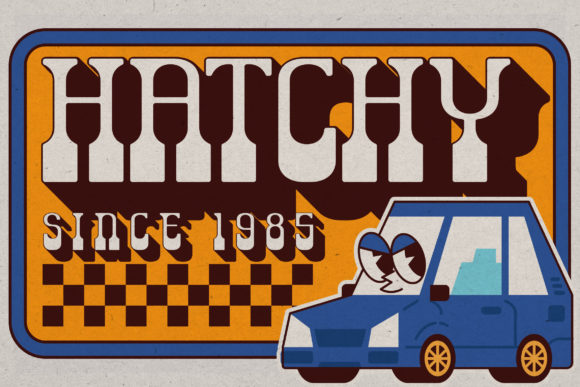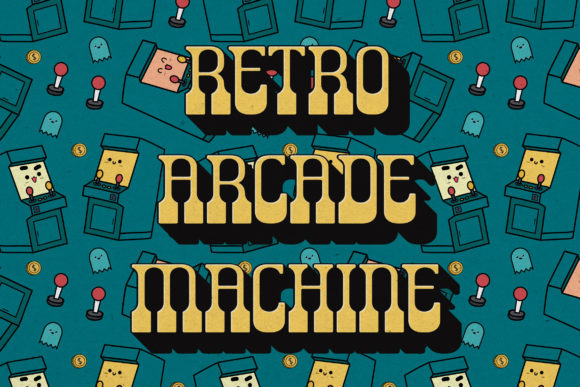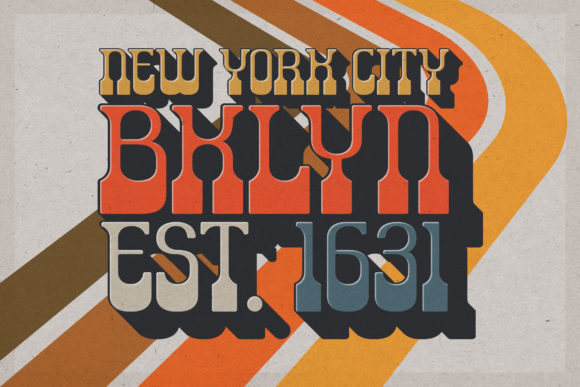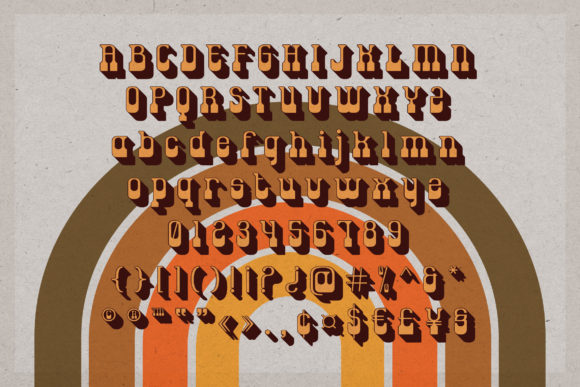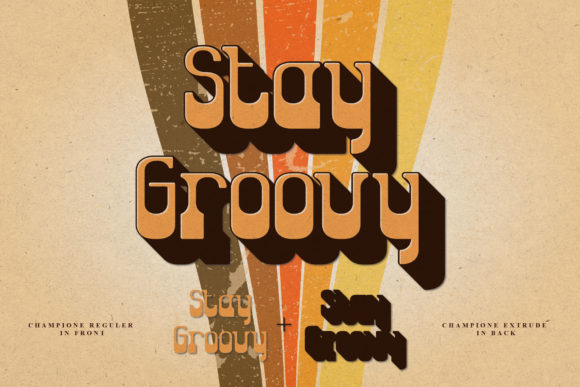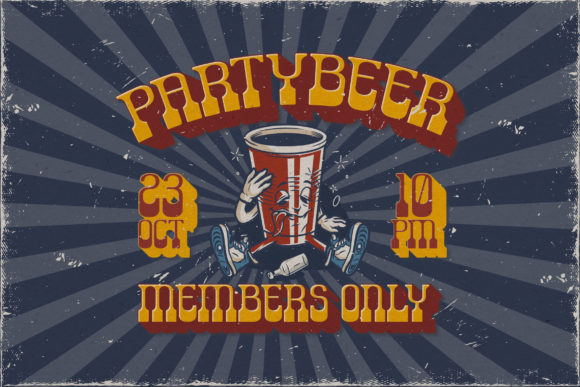
Step Back in Time with Champione Font: A Retro Revival for Modern Designs
I’ll never forget the struggle I faced while working on a vintage-themed editorial project. My client wanted a font that would transport readers back to the 80s, but I was coming up empty-handed. That’s when I stumbled upon Champione Font, a retro gem that instantly brought the era to life. If you’re a designer, crafter, or creative hobbyist looking for a font that exudes nostalgia and style, you’re in the right place!
Champione Font has become a staple in my design toolkit, and here’s why:
- ✨ Retro charm: Champione’s bold, chunky letters instantly evoke the spirit of 80s design.
- ✅ Versatility: This font is perfect for editorial projects, logo design, clothing branding, product packaging, magazine headers, or simply as a stylish text overlay.
- ✅ Legibility: Despite its bold nature, Champione remains surprisingly legible, even at smaller font sizes.
However, I do have to mention a few minor quirks:
- 🤔 Limited use in body text: Due to its bold nature, Champione might not be the best choice for lengthy body text. It’s better suited for headings and titles.
- ⚠️ Glyph limitations: While Champione has a range of glyphs and stylistic alternates, it’s not as extensive as some other fonts on the market.
The Story Behind Champione Font: A Designer Inspiration
Champione Font was inspired by the iconic designs of the 1980s. Its creator, a passionate typographer, sought to capture the era’s bold, playful spirit in a modern font. By combining geometric shapes and careful lettering, Champione Font was born – a font that’s equal parts nostalgic and stylish.
| Font Name | Champione Font |
| Author | Almeera Studio |
| What type of designs is Champione Font best suited for? | Champione Font is perfect for editorial projects, logo design, clothing branding, product packaging, magazine headers, or simply as a stylish text overlay. |
| Is Champione Font legible at small font sizes? | Yes, Champione Font remains surprisingly legible, even at smaller font sizes. However, it’s best used for headings and titles. |
| Does Champione Font have a wide range of glyphs and stylistic alternates? | While Champione Font has a range of glyphs and stylistic alternates, it’s not as extensive as some other fonts on the market. |